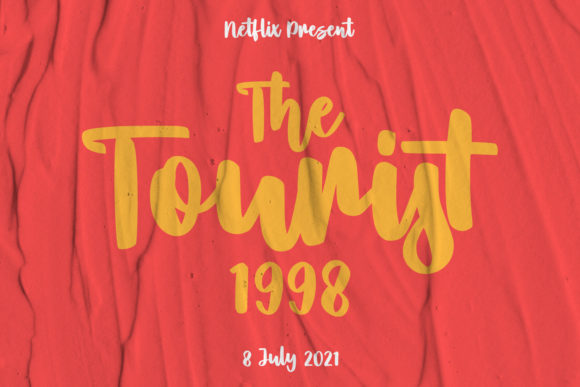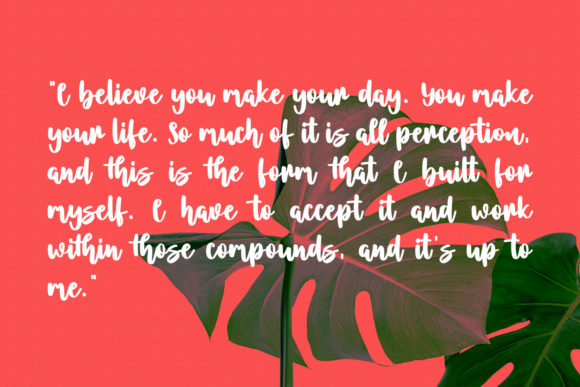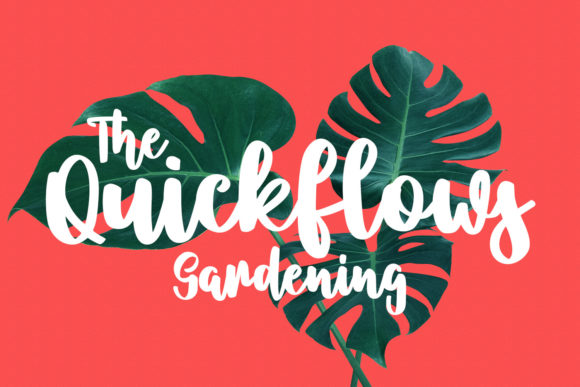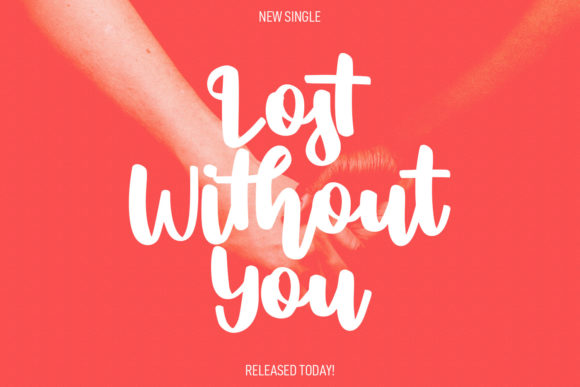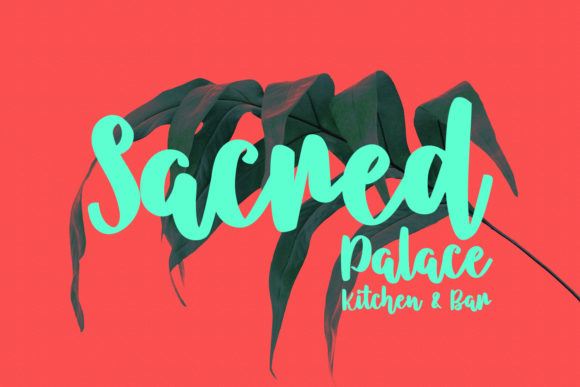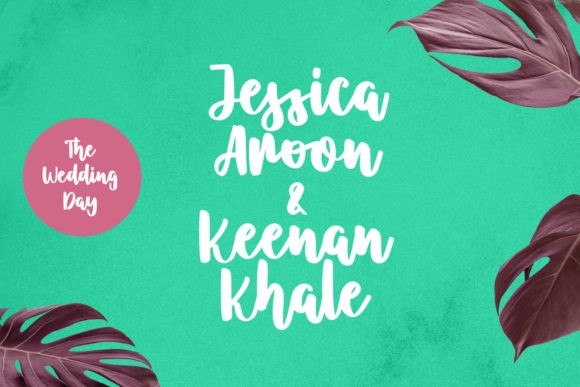
Lostmithy Script Font
About Lostmithy Script Font
Lostmithy Script is a thick lettered and trendy handwritten font. This font reads as strong, confident, and dynamic and can add tons of nostalgic character to your designs.